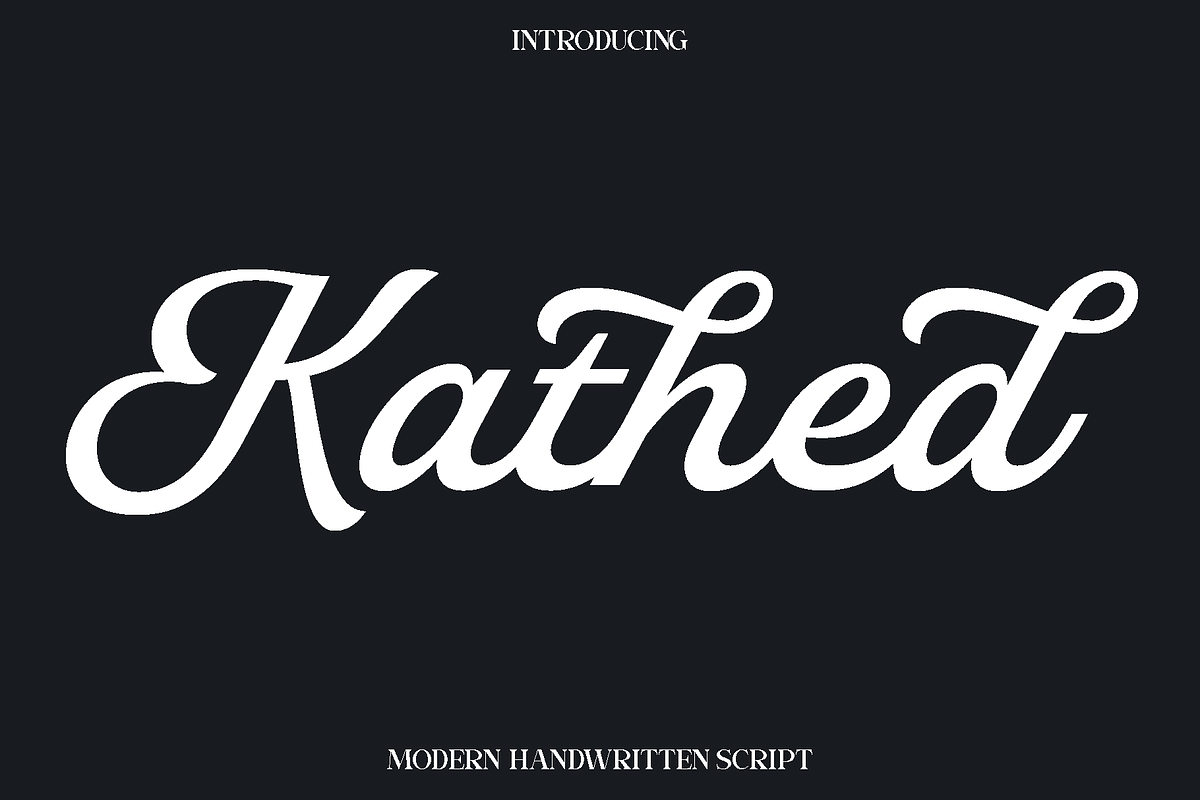
Kathed - Modern Handwritten Script
Kathed is a thoughtfully crafted typeface designed to bring clarity, style, and versatility to a wide range of creative projects. Inspired by modern editorial aesthetics and clean typography, Kathed balances readability with personality, making it a reliable choice for designers who want a font that feels both professional and expressive. Its carefully shaped letterforms create a smooth visual rhythm that enhances content without overpowering it.
Kathed shines across many design environments, from books and magazines to branding and digital media. Whether you are creating a memorable logo, an engaging blog header, a striking poster, or refined photography captions, Kathed adapts effortlessly. Its balanced structure allows it to work beautifully in both large display settings and smaller text applications, making it a practical yet stylish addition to any design toolkit.
The font carries a modern and approachable feel that suits contemporary projects while maintaining a timeless quality. Designers will appreciate its flexibility and clean appearance, which help communicate messages clearly while adding a subtle touch of character. Kathed is ideal for creatives looking for a dependable typeface that enhances visual storytelling across print and digital platforms.
Kathed Font Features:
• Uppercase and lowercase characters
• Numerals and functional glyphs
• Multilingual support
• Clean and readable letterforms
• Suitable for both display and text use